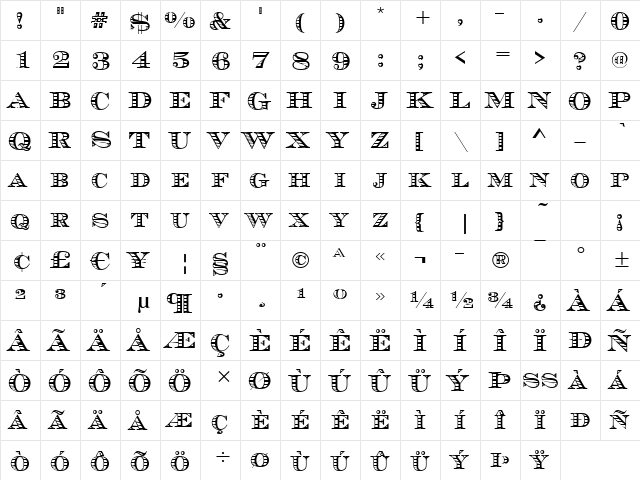
Maurice-Stripes Regular
Design Context for Maurice-Stripes Typeface
Maurice-Stripes is a composed and adaptable typeface that performs quietly and consistently across a wide range of design contexts.